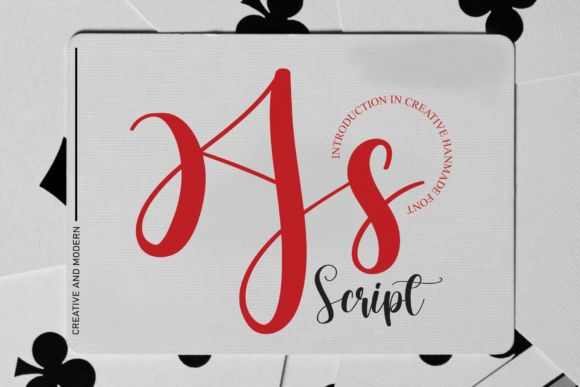
As Font: The Magical Script Font for Elegant Creations
In the world of typography, fonts play a crucial role in conveying the tone and personality of a creative project. Whether you’re a designer, artist, or DIY enthusiast, finding the right font can make all the difference. If you’re looking for a font that exudes elegance and sophistication, look no further than As Font. In this article, we’ll explore the features and benefits of As Font, and how it can elevate your creative projects to new heights.
What is As Font?
As Font is a beautiful script font that has been carefully crafted with a touch of elegance. Its unique and flowing design makes it perfect for a wide range of creative projects, from Instagram posts to calligraphy scripts for DIY projects. With its magical and whimsical feel, As Font is sure to turn any creative idea into a true piece of art.
Key Features of As Font
- Elegant Design: As Font boasts a sophisticated and elegant design that is perfect for high-end creative projects.
- Magical and Whimsical: The font’s unique and flowing design gives it a magical and whimsical feel that’s perfect for creative projects that require a touch of personality.
- Versatile: As Font is a versatile font that can be used for a wide range of creative projects, from Instagram posts to calligraphy scripts for DIY projects.
- Easy to Read: Despite its elegant and cursive design, As Font is easy to read and understand, making it perfect for projects that require a high level of legibility.
Uses of As Font
As Font is a versatile font that can be used for a wide range of creative projects. Here are some of the most popular uses of As Font:
Popular Uses of As Font
- Instagram Posts: As Font is perfect for creating beautiful and eye-catching Instagram posts that require a touch of elegance and sophistication.
- Calligraphy Scripts: The font’s unique and flowing design makes it perfect for calligraphy scripts for DIY projects, such as wedding invitations, greeting cards, and more.
- Branding and Logo Design: As Font can be used to create stunning brand logos and marketing materials that require a high level of elegance and sophistication.
- Art and Illustration: The font’s magical and whimsical feel makes it perfect for art and illustration projects that require a touch of personality and creativity.
Benefits of Using As Font
As Font offers a range of benefits that make it the perfect choice for creative projects. Here are some of the most significant advantages of using As Font:
Benefits of Using As Font
- Unique and Creative: As Font offers a unique and creative design that can help your project stand out from the crowd.
- Elegant and Sophisticated: The font’s elegant and sophisticated design makes it perfect for high-end creative projects that require a touch of luxury.
- Highly Versatile: The font’s versatility makes it perfect for a wide range of creative projects, from Instagram posts to calligraphy scripts for DIY projects.
Tips for Using As Font
Here are some tips for using As Font in your creative projects:
Tips for Using As Font
- Use it Sparingly: As Font is a elegant and sophisticated font, so use it sparingly to avoid overwhelming your project.
- Pair it with Other Fonts: As Font can be paired with other fonts to create a unique and creative look.
- Experiment with Different Sizes: Experiment with different font sizes to find the perfect size for your project.
- Use it for Headings and Titles: As Font is perfect for headings and titles, so use it to add a touch of elegance and sophistication to your project.
In conclusion, As Font is a magical script font that offers a unique and elegant design that’s perfect for creative projects. With its versatile and whimsical feel, As Font is sure to turn any creative idea into a true piece of art. Whether you’re looking for fonts for Instagram or calligraphy scripts for DIY projects, As Font is the perfect choice. So why wait? Download As Font today and start creating stunning creative projects that exude elegance and sophistication.